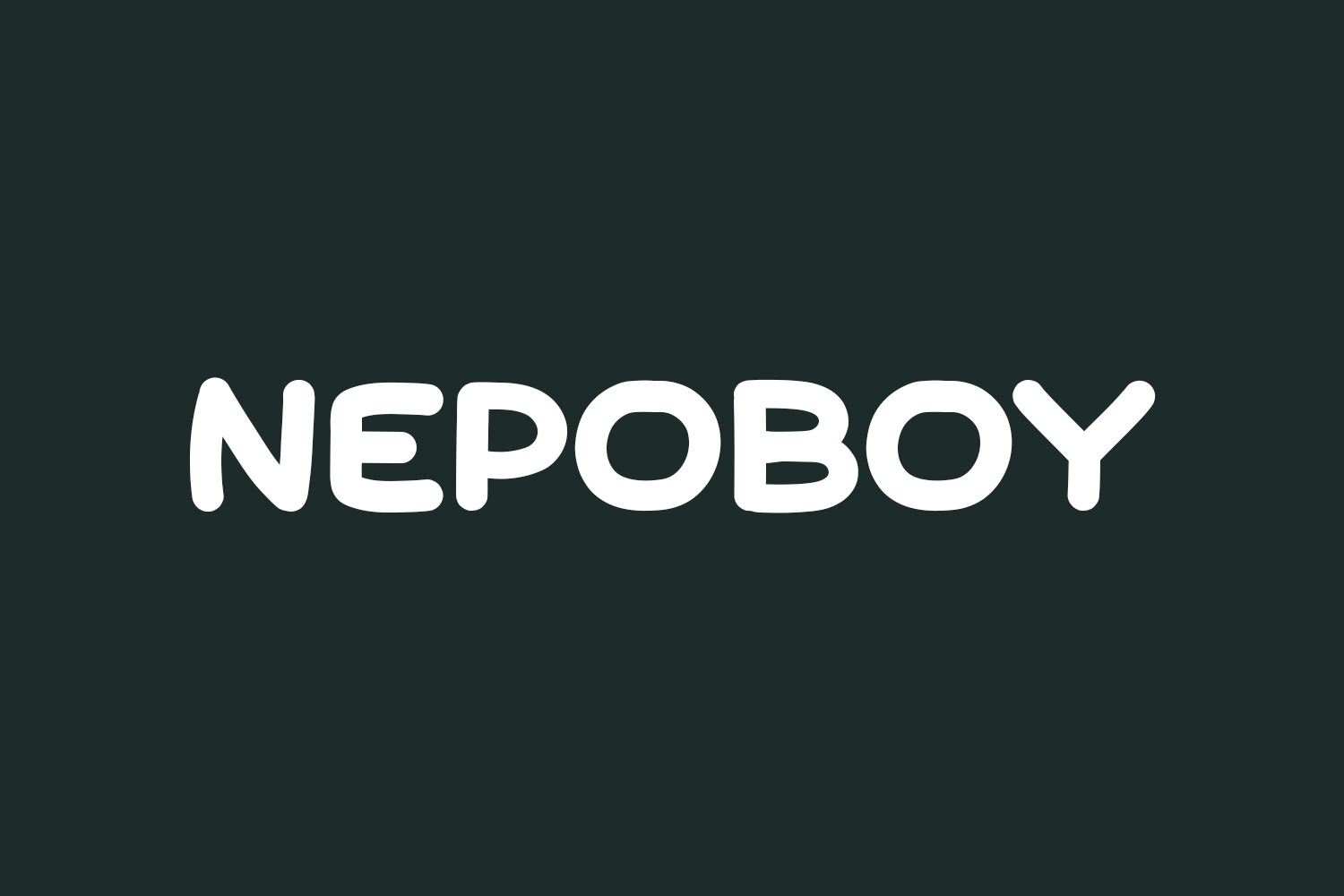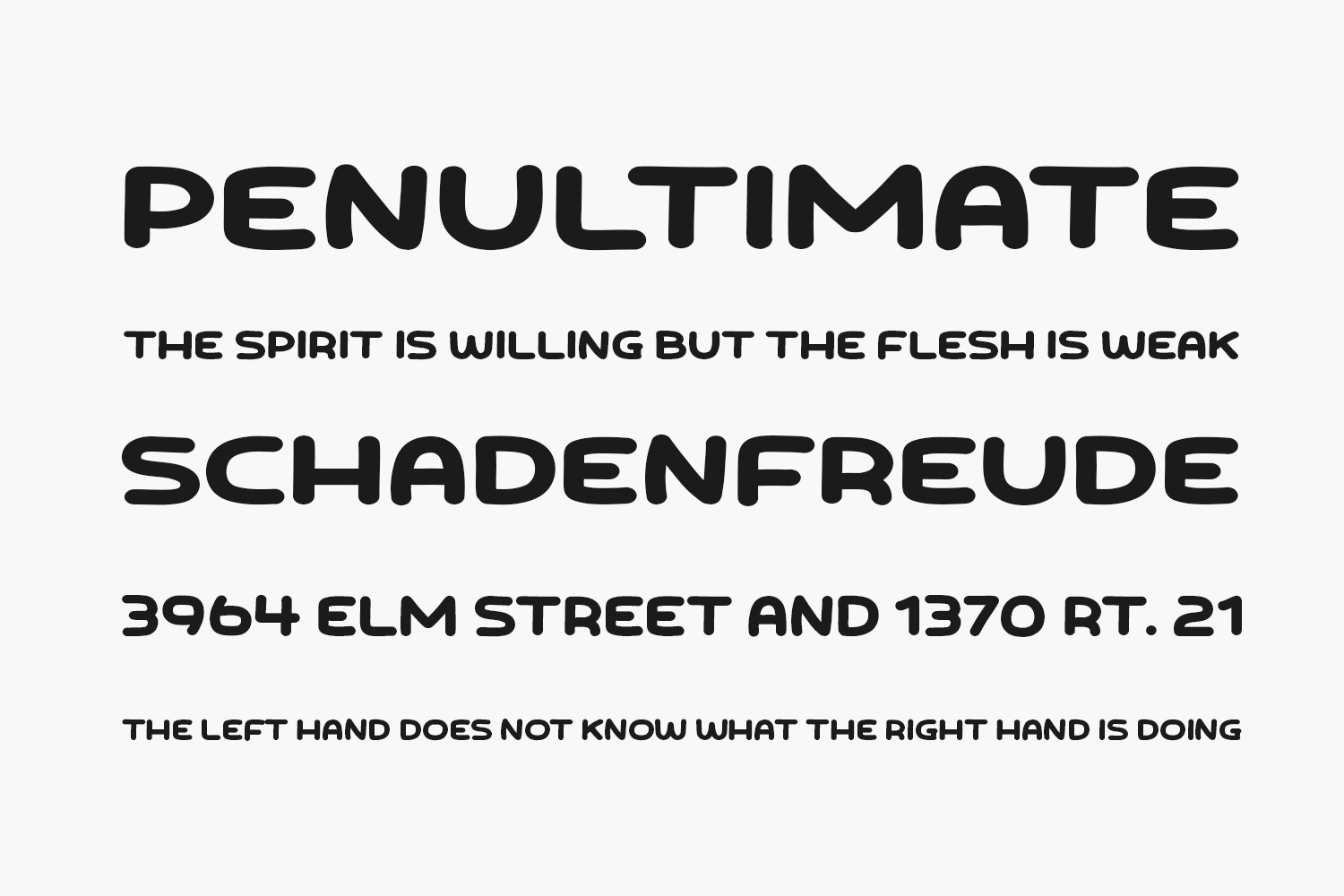
Introducing Nepoboy Free Font, a sleek and sophisticated display font tailor-made for posters, logos, magazines, book covers, banners, and beyond! Elevate your designs with this remarkable font. Its versatility seamlessly integrates with a diverse array of projects, so incorporate Nepoboy into your creative repertoire and witness how it effortlessly makes your ideas stand out with modern flair. Nepoboy Free Font was designed by Khurasan and is free for personal or commercial use.